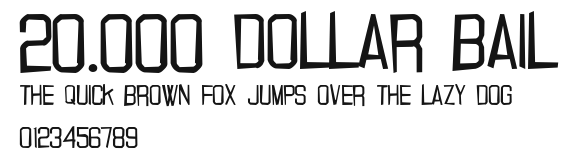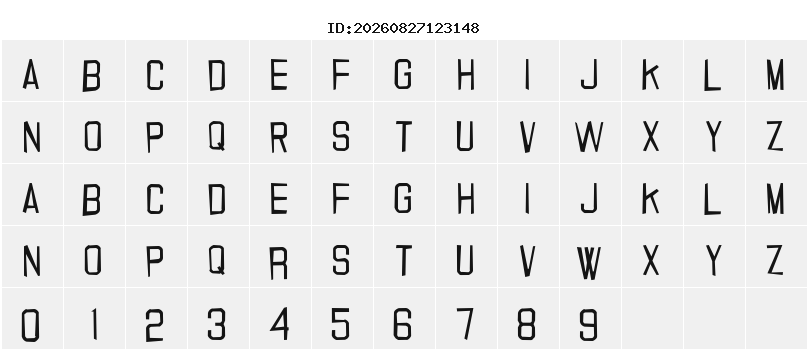
About 20.000 dollar bail.ttf
20.000 dollar bail.ttf is a modern, elegant sans-serif font designed for ultimate readability and visual harmony. Perfect for branding, headlines, web design, and print materials.